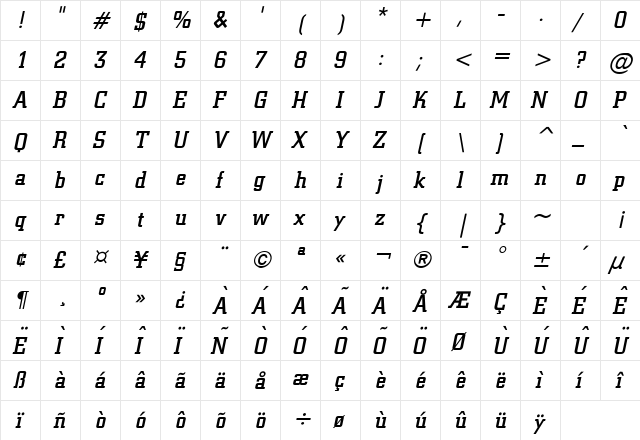
Geo 957 Italic Font Preview
Geo 957 Italic
Geo 957 Italic Font Details
Design Context for Geo 957 Typeface
Geo 957 takes a measured approach to typography — its balanced proportions and neutral character make it a reliable workhorse for both digital and print work. Its italic angle brings a sense of urgency and motion to the letterforms.